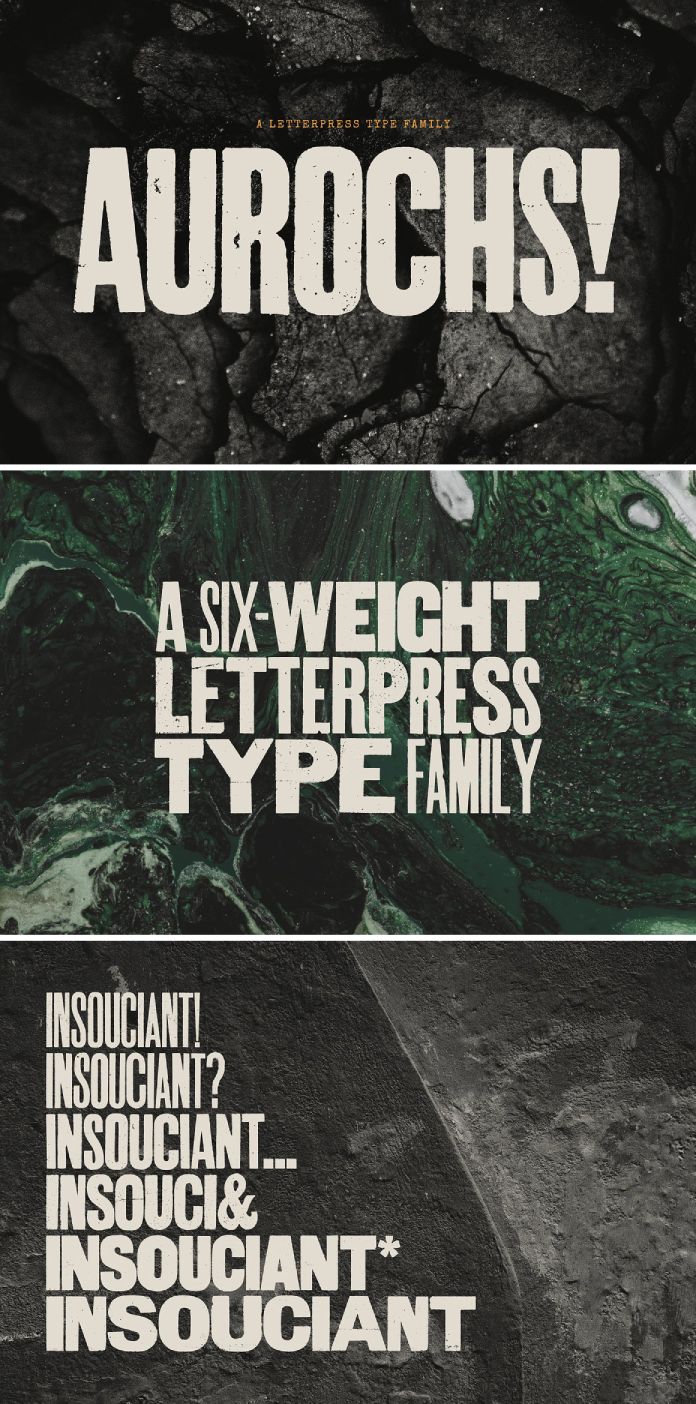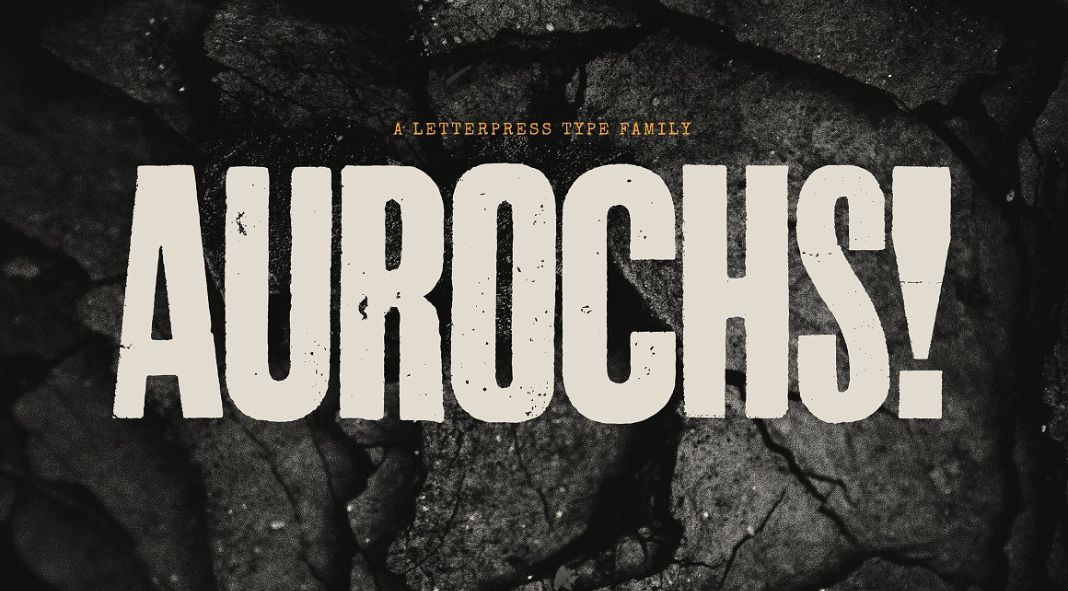
Experience the Wild West with Aurochs Font Family.
If you’re looking for a typeface that captures the spirit of the old west, look no further than Aurochs, a display font family developed by Polymath. Aurochs is a versatile typeface that can be used in a variety of applications such as branding, posters, and even editorial design.
A Font Family Like No Other
Aurochs is a display font family that comes in six unique weights, each with its own distinct style. The font has been developed from scans of vintage letterpresses and woodblock prints, giving it an authentic and rustic feel that captures the essence of the old west. Aurochs’ reference to the wild west era of typography creates a kind of nostalgia for a bygone age, evoking a simpler time when letterforms were handmade and imperfect, with various weights and styles thrown together in a kind of controlled chaos.
Perfect for a Wide Range of Design Applications
The Aurochs font family is perfect for a variety of design applications, such as editorial design, branding, and posters. The unique vintage style of the font brings a touch of authenticity and originality to any project, making it a popular choice for designers looking to create something that stands out from the crowd.
Key Features
Aurochs is a distinct and versatile font family that offers users several unique features. Here are some of the key features of this typeface:
- Vintage style: the font’s rustic and weathered texture gives it a classic and authentic look, reminiscent of a bygone era.
- Multiple weights: with six unique weights, Aurochs offers plenty of flexibility and versatility.
- Unique character: Aurochs’s versatility lies in its unique character, which captures the essence of the wild west in a modern and contemporary way.
How to Use Aurochs
A Typeface to Capture the Imagination
Aurochs is a font family like no other. With its unique style and character, this font is perfect for designers looking to capture the imagination of their audience. Its versatility and authenticity make it an ideal choice for any design application, while its vintage appeal gives projects an added sense of character and originality.
Conclusion
In conclusion, the Aurochs font family evokes the rustic charm of the old west through its unique style and character. Its versatility and authentic vintage texture make it a popular choice among designers for branding, editorial design, and posters. So why not try out this unique and versatile font family and add a touch of wild west nostalgia to your next design project?